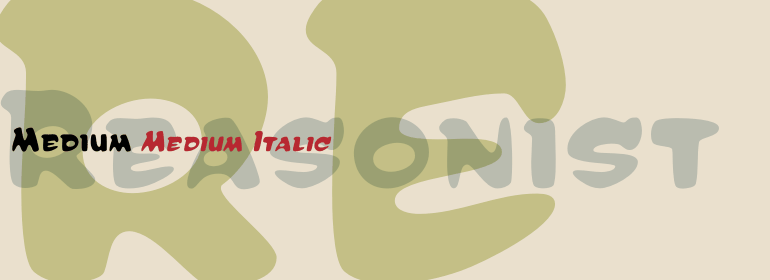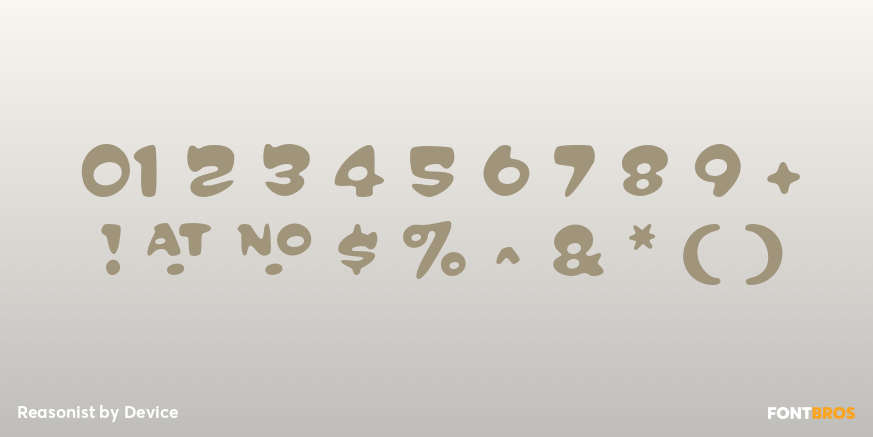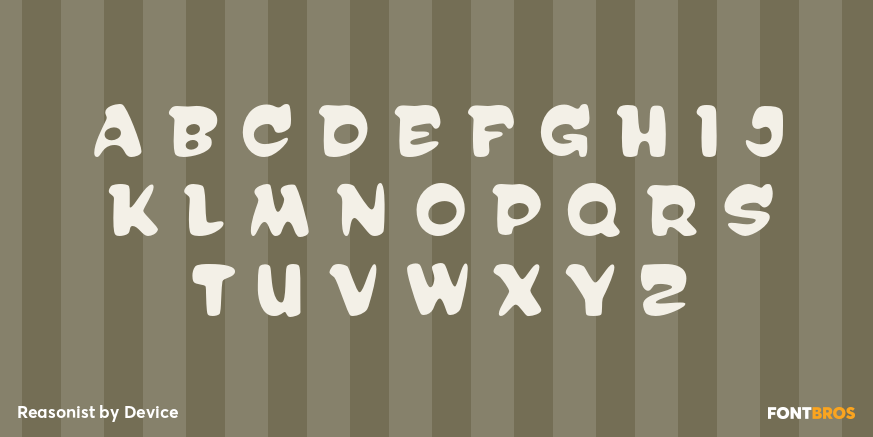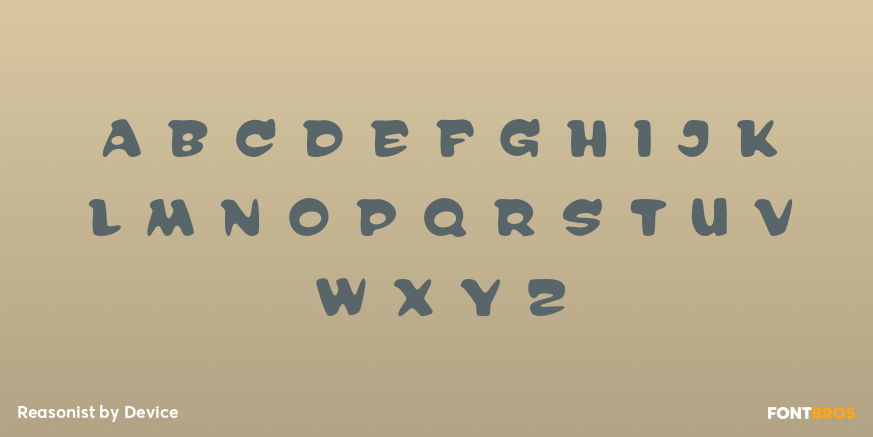
Reasonist
Font Family by Device
Reasonist is a two-style display family from Device with a playful, futuristic edge. Its mix of fun, wacky energy and forward-looking form gives headlines and short phrases a distinctly offbeat personality, making it a strong choice when you want typography to feel bold, unusual, and graphic.
The family includes Reasonist Medium and Reasonist Medium Italic, giving you a straightforward upright and a more dynamic slanted companion for contrast. Use it for posters, branding concepts, packaging, social graphics, or other display work where a quirky sci-fi flavor and a confident visual voice can do the heavy lifting.